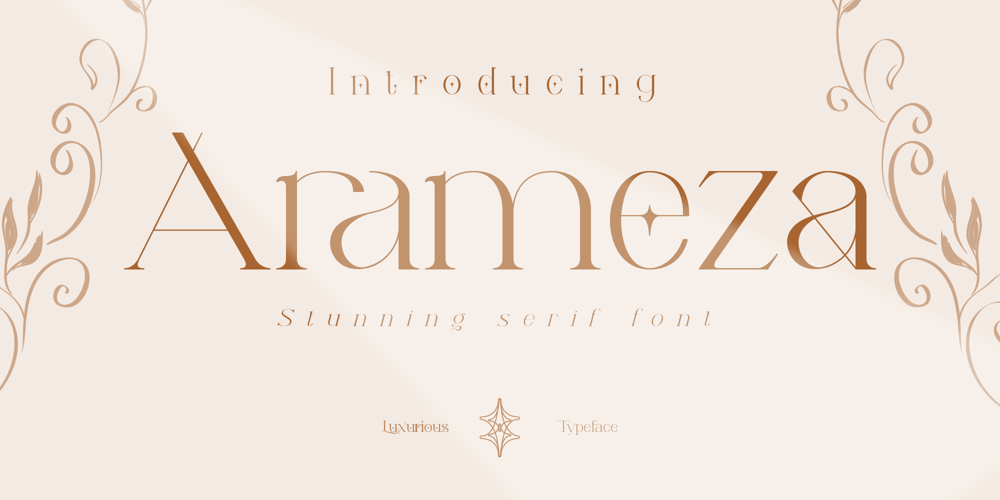
Arameza Font Family was designed by Irfan Hidayat and published by Creative17studio. Arameza contains 2 styles and family package options. IntroducingArameza, a stunning serif font. Arameza comes with a thin, luxurious and elegant font style. This font is very versatile for a variety of design purposes. don’t forget the luxurious impression that is in each character, it gives added value in every design project, such as poster design, invitation cards, web writing, banner design, packaging, branding, business cards and many other design projects that can be supported by this font.This font also supports multilingual.features:- complete basic characters (uppercase/lowercase)- Numeral & punctuation marks- Multilingual support- multiple ligatures- some alternative charactersAny question? just ask.Thank you